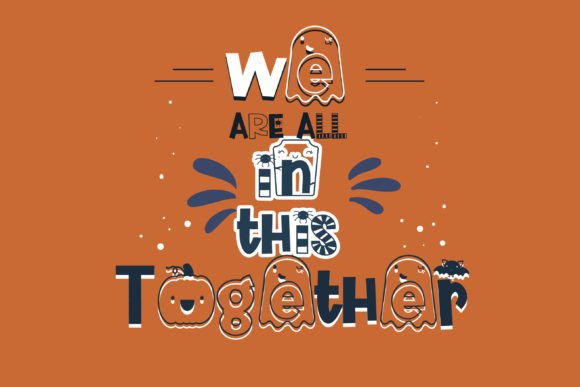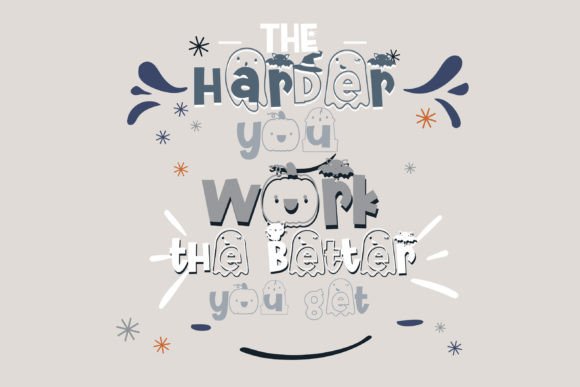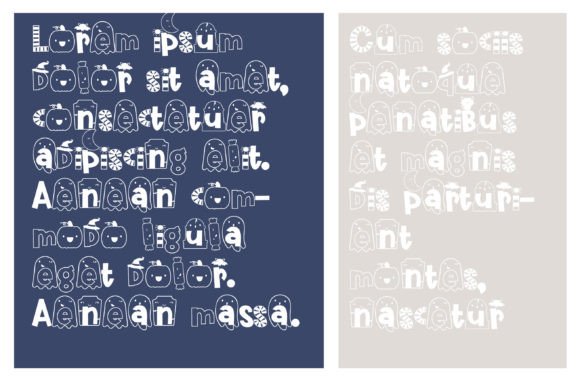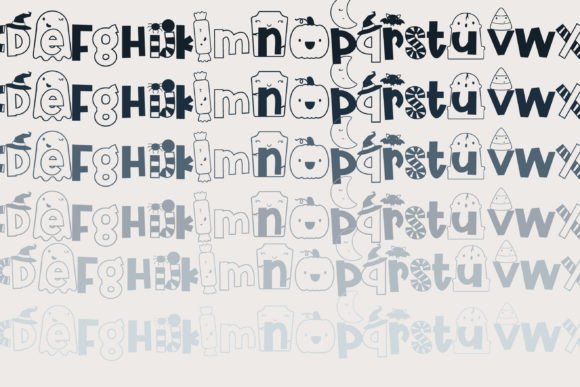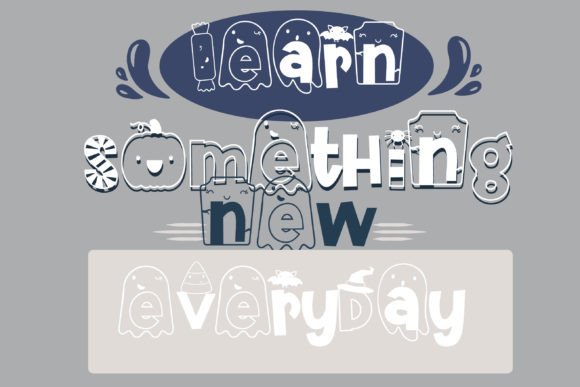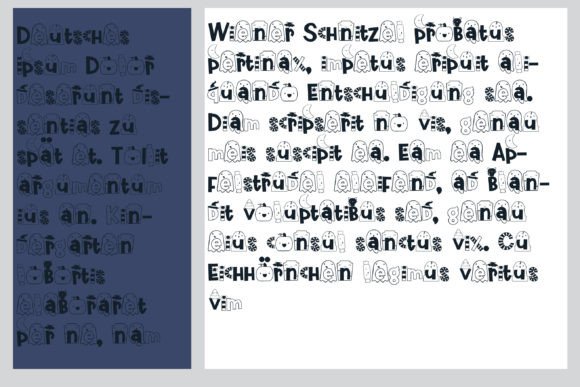
Cutie Halloween Font: Add a Touch of Spooktacular Fun to Your Projects
Are you looking for a font that will add a dash of spooky fun to your Halloween projects? Look no further than the Cutie Halloween font! This delightfully playful typeface is designed to bring a touch of whimsy and eeriness to your designs, making it perfect for party invitations, posters, and spooky decorations.
What is Cutie Halloween Font?
Cutie Halloween font is a unique and creative typeface that captures the essence of the Halloween season. With its playful and spooky letterforms, this font is sure to add a touch of magic to your projects. Whether you’re a designer, crafter, or simply someone who loves Halloween, this font is a must-have for your creative toolkit.
Key Features of Cutie Halloween Font
- Whimsical and Eerie Letterforms: The Cutie Halloween font features letterforms that are both playful and spooky, making it perfect for Halloween-themed projects.
- Perfect for Party Invitations: Use this font to create spooktacular party invitations that will set the tone for a fun and festive Halloween celebration.
- Ideal for Posters and Decorations: Add a touch of Halloween magic to your posters, decorations, and other creative projects with this unique and eye-catching font.
Tips for Using Cutie Halloween Font
- Experiment with Different Sizes: Play around with different font sizes to create a unique and eye-catching design.
- Combine with Other Fonts: Pair the Cutie Halloween font with other fonts to create a unique and interesting design.
- Add Halloween-themed Graphics: Add Halloween-themed graphics, such as pumpkins or ghosts, to create a spooktacular design.
Benefits of Using Cutie Halloween Font
There are many benefits to using the Cutie Halloween font in your projects. Here are just a few:
- Save Time: With the Cutie Halloween font, you can create spooktacular designs in no time.
- Stand Out from the Crowd: The unique and playful letterforms of this font will help your designs stand out from the crowd.
- Add a Touch of Whimsy: The Cutie Halloween font adds a touch of whimsy and fun to your designs, making them perfect for Halloween-themed projects.
Who Can Use Cutie Halloween Font?
The Cutie Halloween font is perfect for anyone who loves Halloween and wants to add a touch of spooky fun to their projects. Here are just a few examples of who can use this font:
- Designers: Graphic designers, illustrators, and other creative professionals can use the Cutie Halloween font to create spooktacular designs for their clients.
- Crafters: Crafters, scrapbookers, and other DIY enthusiasts can use this font to create unique and personalized Halloween-themed projects.
- Teachers: Teachers can use the Cutie Halloween font to create fun and educational Halloween-themed materials for their students.
In conclusion, the Cutie Halloween font is a must-have for anyone who loves Halloween and wants to add a touch of spooky fun to their projects. With its whimsical and eerie letterforms, this font is perfect for party invitations, posters, and spooky decorations. So why wait? Download the Cutie Halloween font today and get ready to add a touch of Halloween magic to your projects!